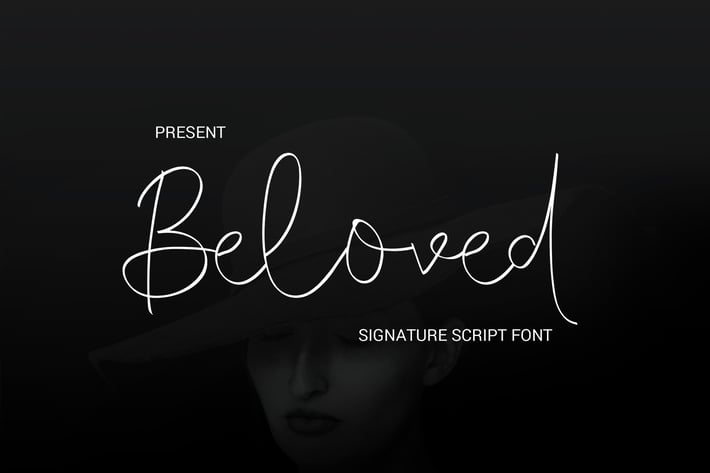
Beloved Signature Font
Beloved
Beloved Font is a signature script font. This font is perfect for making your set of apparel,
T-shirt, Hoodie, quotes, product packaging, brand, blog posts,
greeting cards, labels, posters, wall art, etc